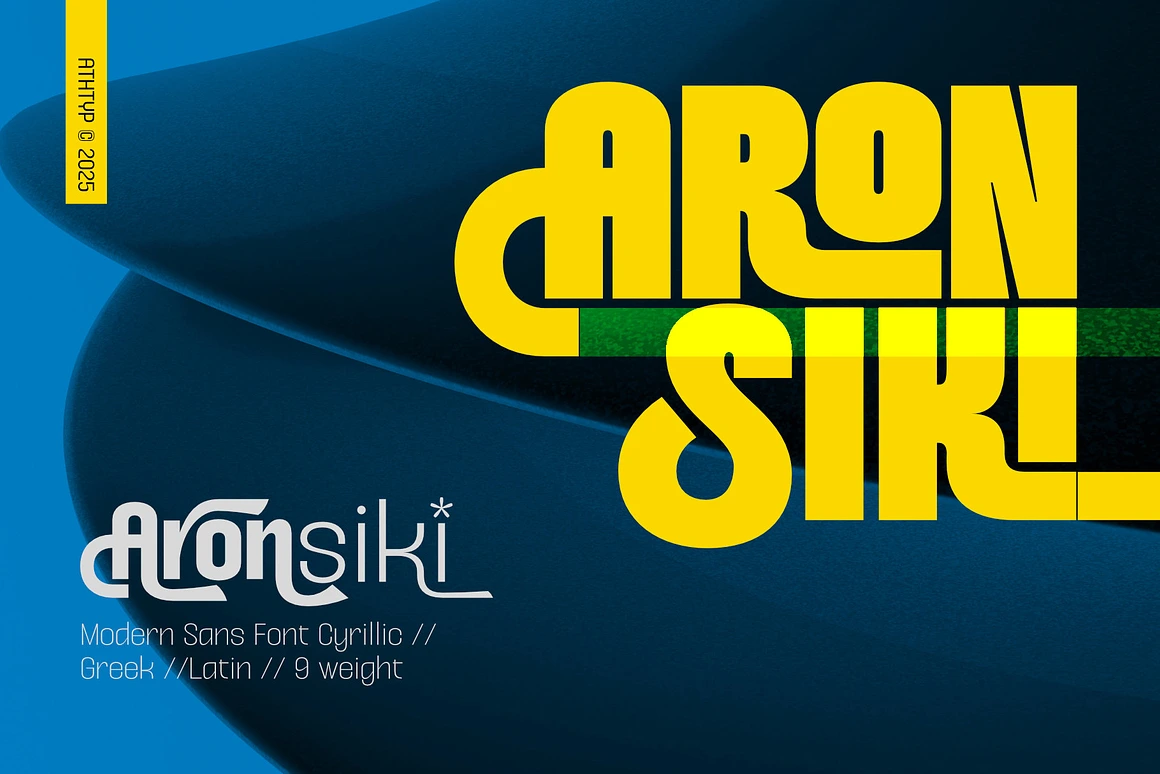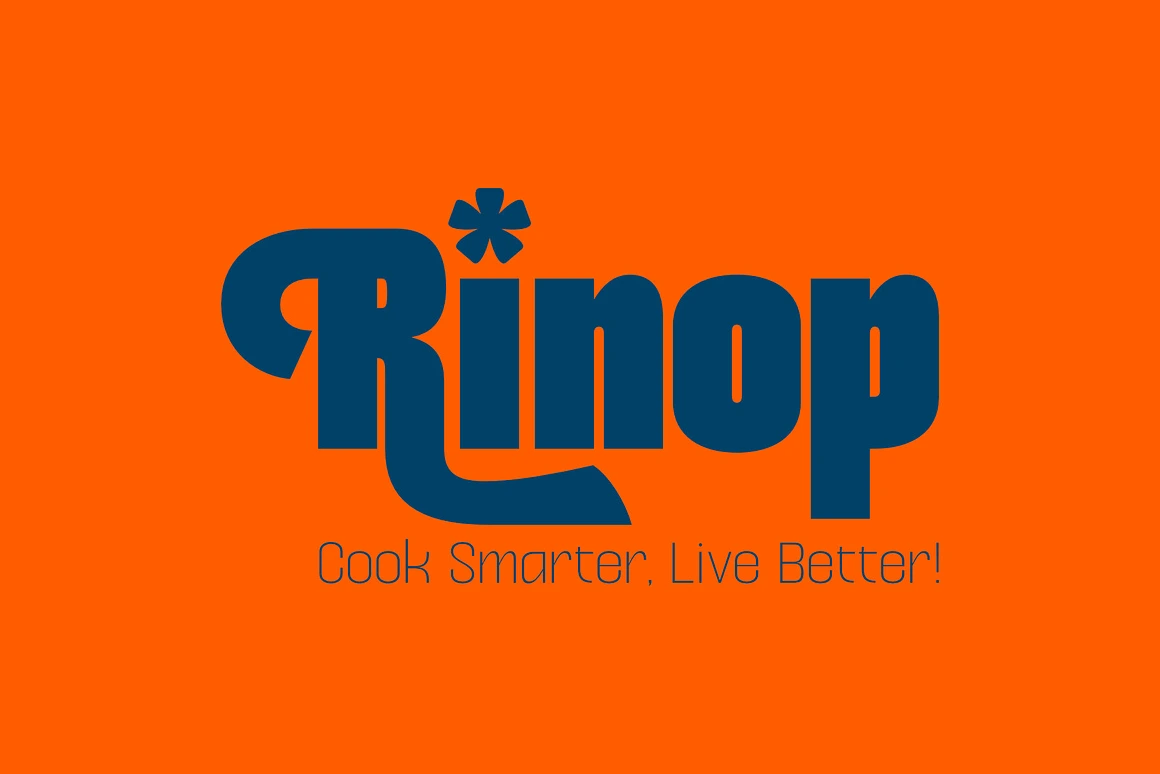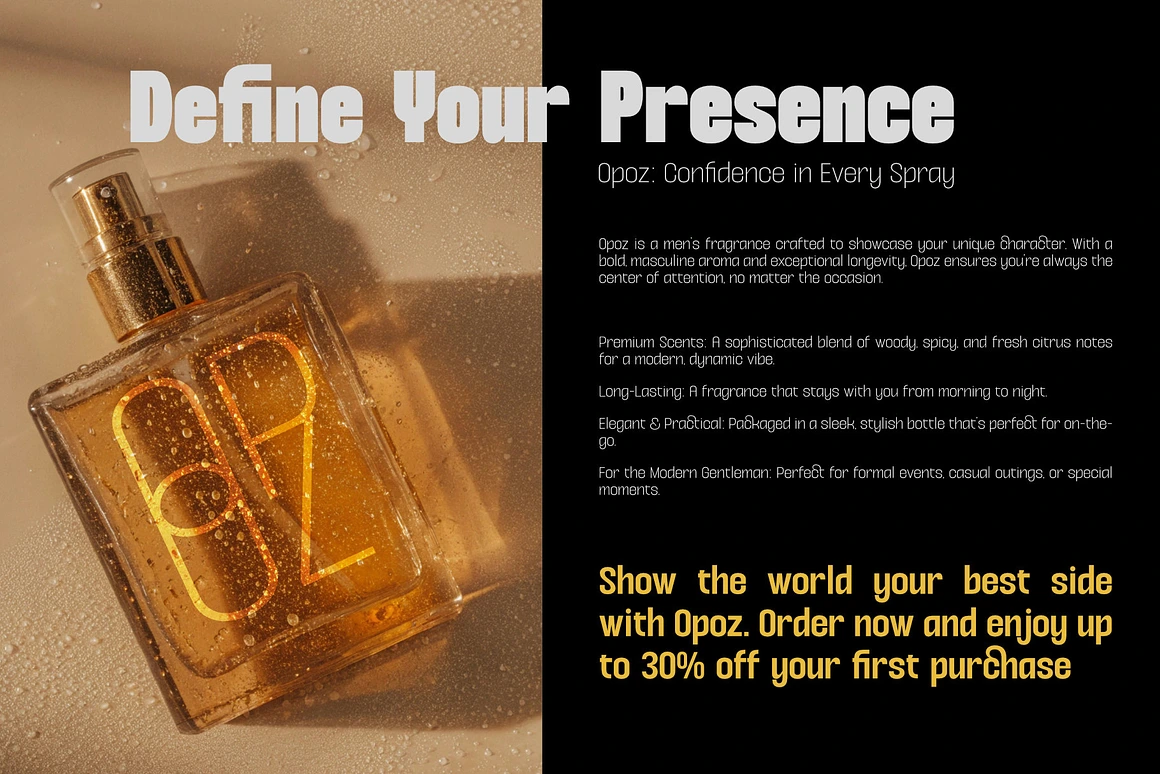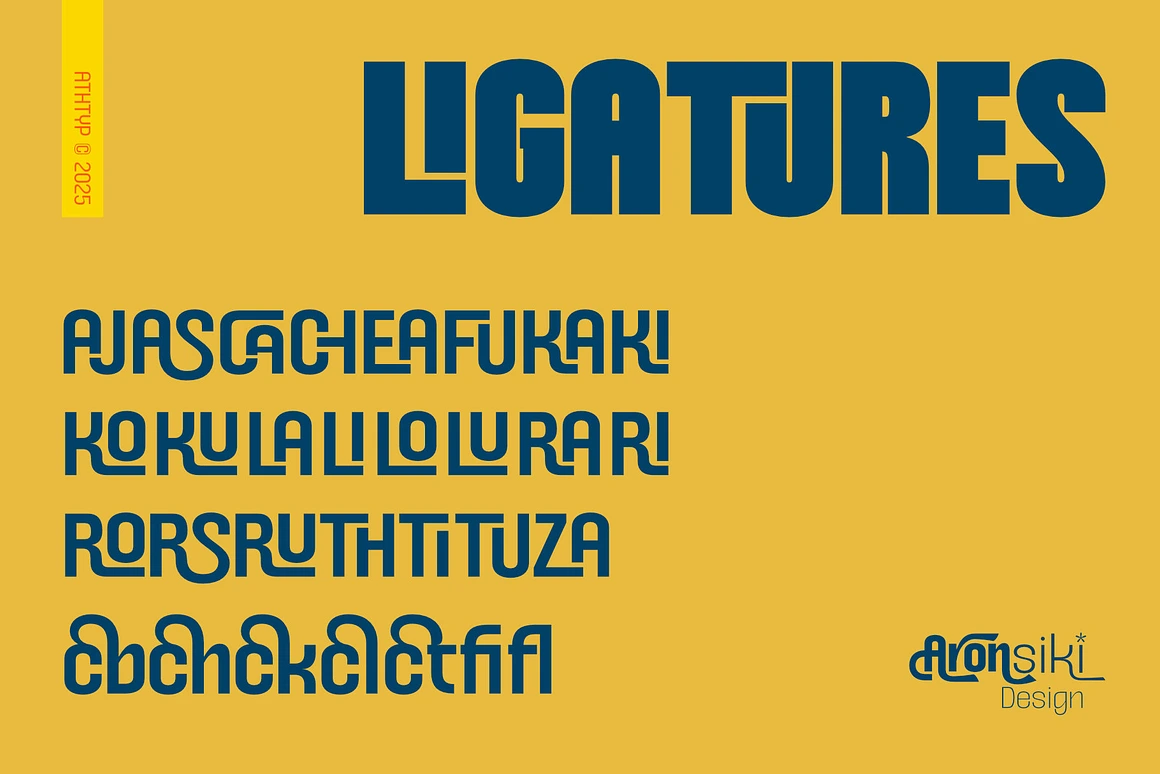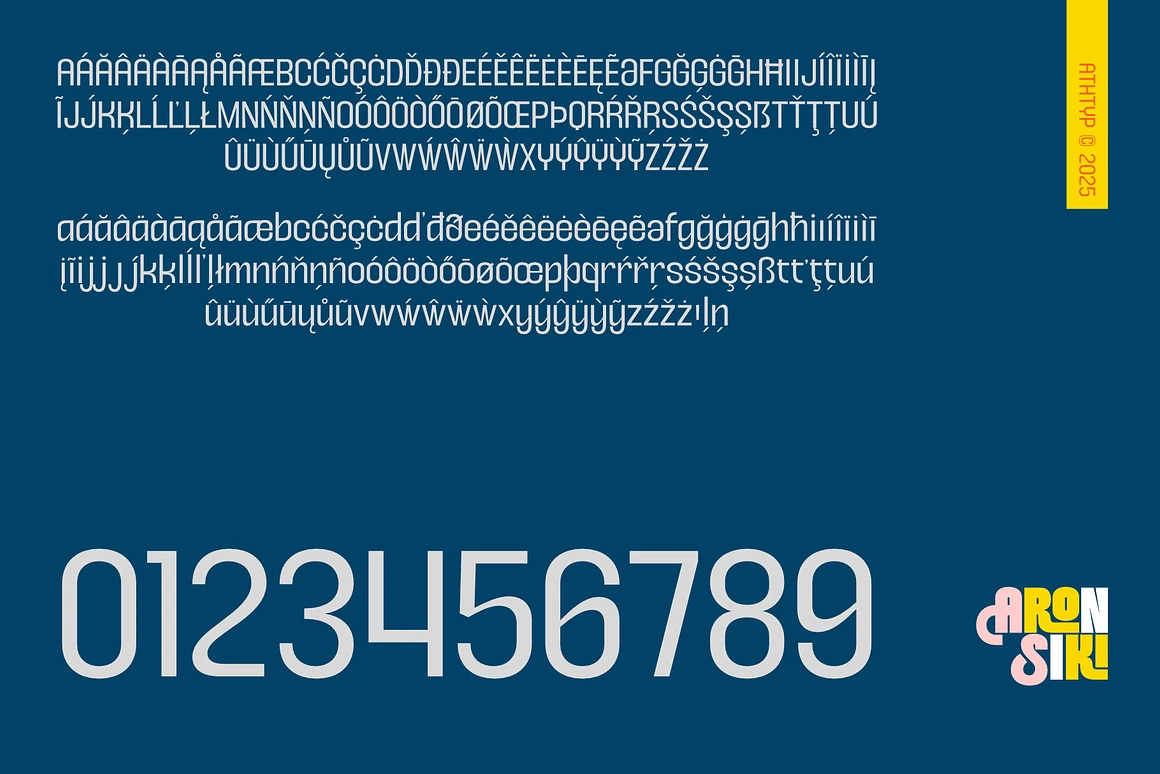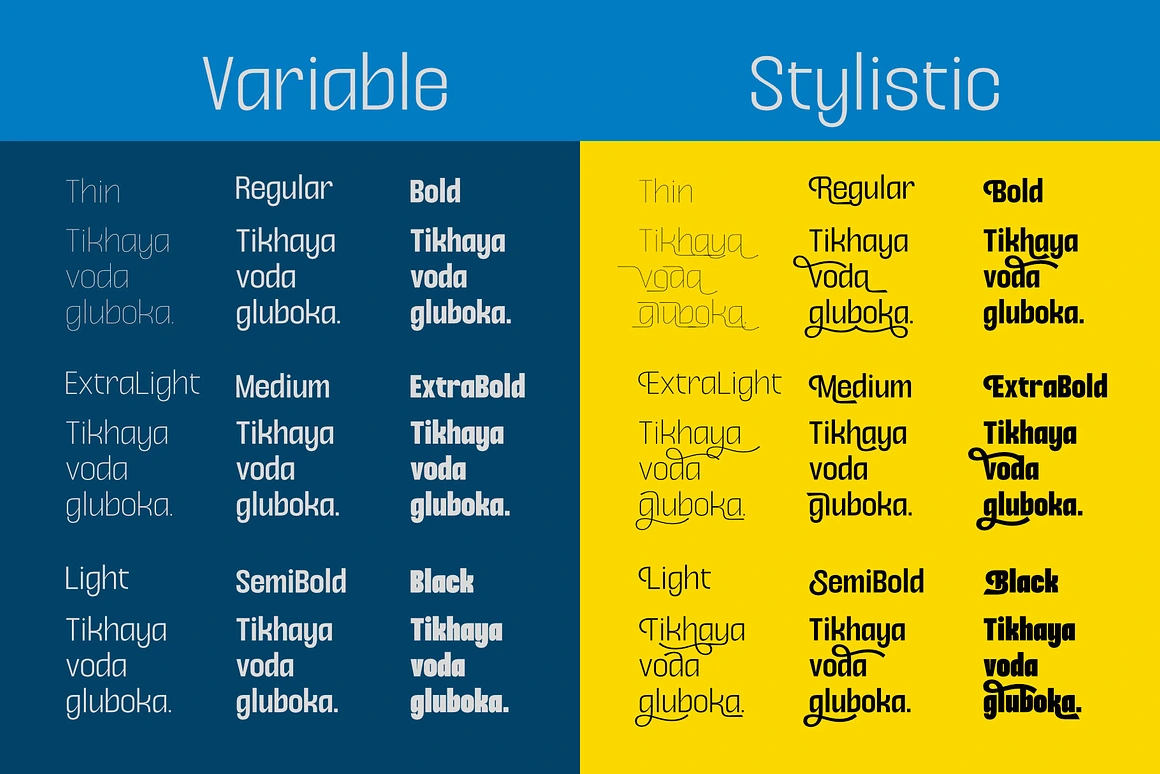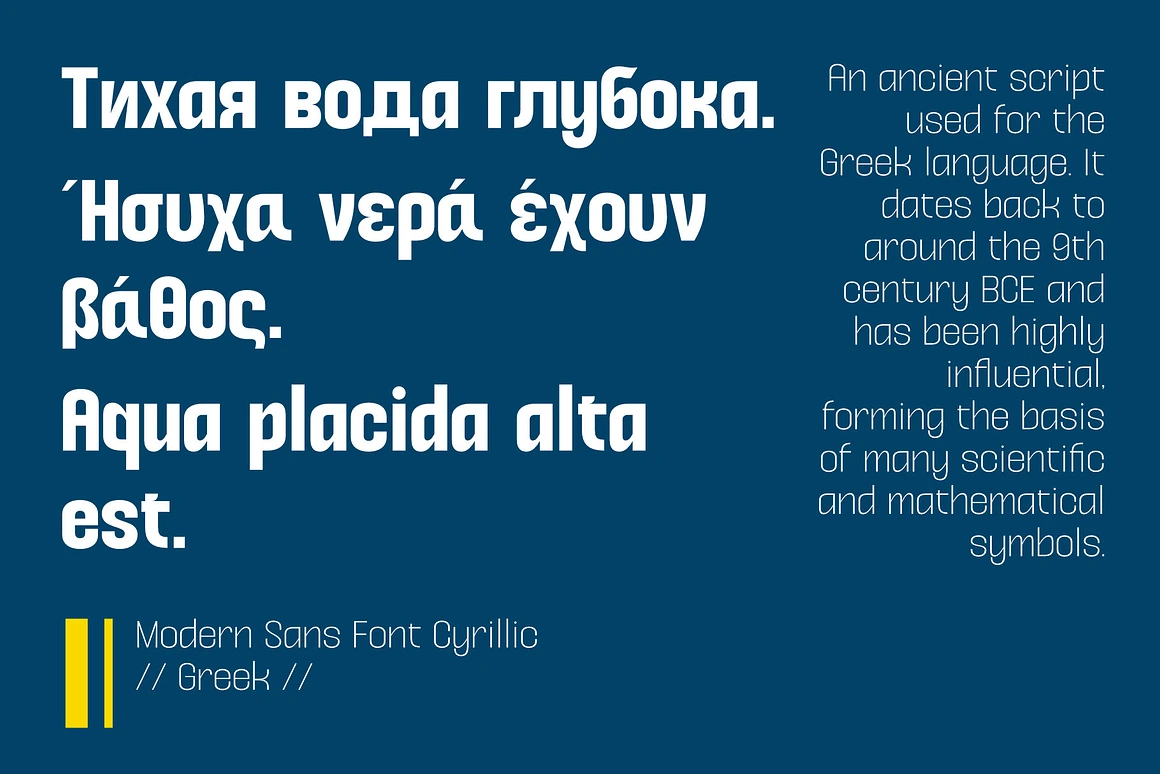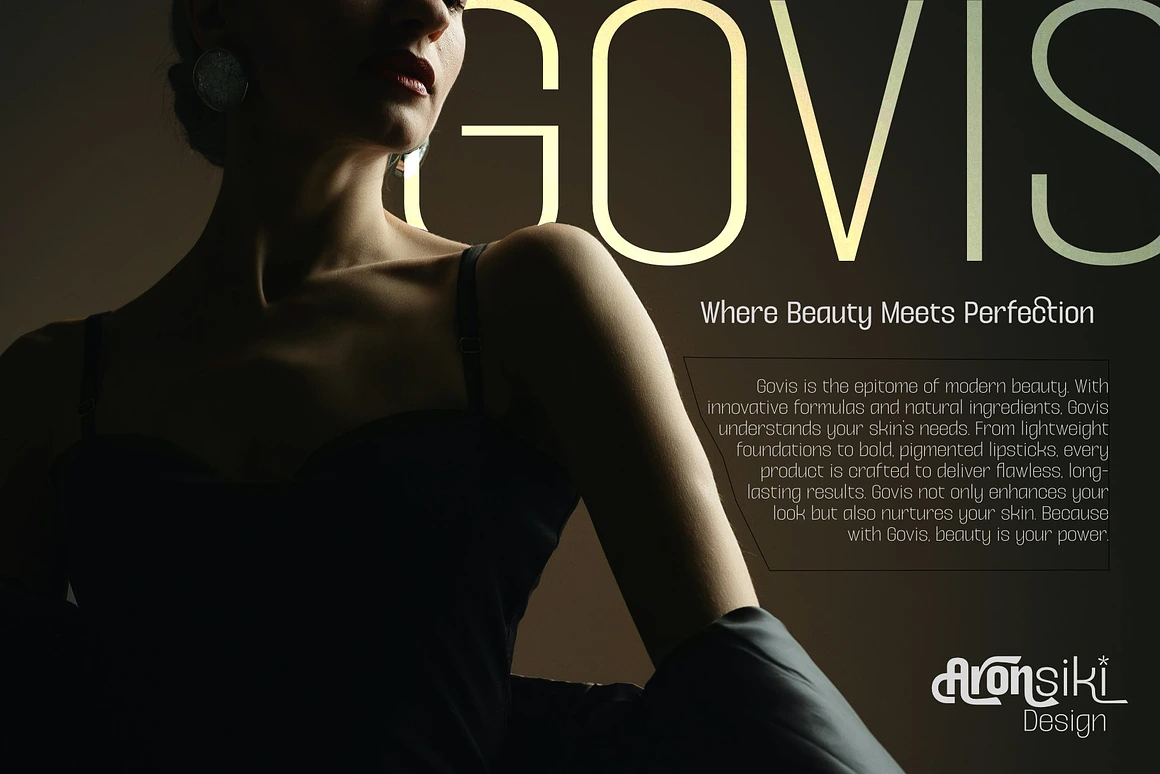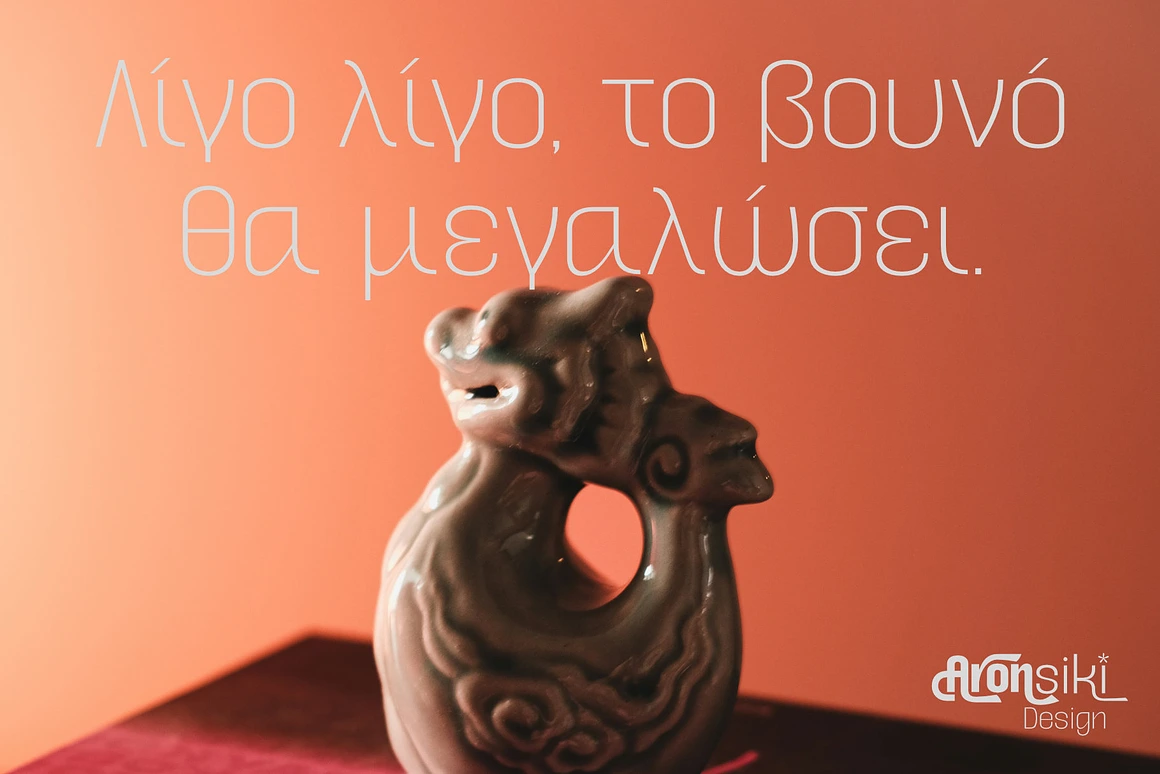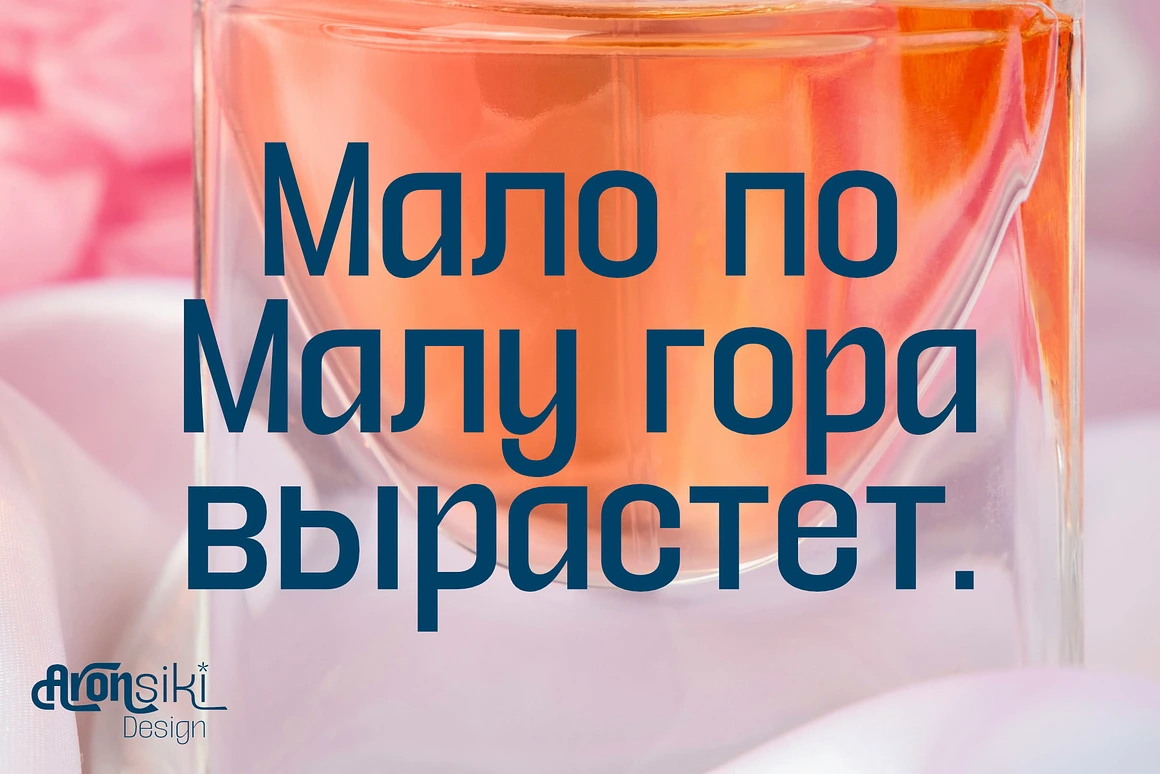
Aronsiki - Versatile Elegance Font
Aronsiki Versatile Elegance Font for Global Design A modern sans-serif font family featuring 9 weight variants, from Thin to Black, offering complete flexibility for diverse design needs. With support for Latin, Cyrillic, and Greek scripts, it is perfectly suited for international projects.
FONT DESIGN CHARACTERISTICS
Geometric Sans-Serif: Aronsiki employs a geometric and clean sans-serif structure. Its letterforms are proportional and exude a modern aesthetic. Simplicity: Free from excessive decorative elements, the font delivers a minimalist yet professional impression. Design Consistency: Each character is crafted with harmonious balance, blending curved elements and straight lines seamlessly.
STYLE AND FUNCTION
Multilingual Support: Aronsiki accommodates various scripts, including Latin with diacritics, Cyrillic, and Greek, as well as numbers and symbols, making it highly versatile for global applications. Clarity in Numbers: Its digits (0–9) are designed for readability and sophistication, ideal for use in editorial designs, web interfaces, and branding.
USAGE
Modern Branding: With its clean and professional aesthetic, Aronsiki is perfect for brands looking to convey a futuristic and progressive identity. Digital and Print: The font’s versatility ensures seamless application across digital platforms like websites and apps, as well as in print editorial layouts.
KEY FEATURES
Ligatures: Enhances text aesthetics with beautiful letter combinations. Stylistic Sets: Includes 2 stylistic sets, providing creative alternative letterforms. Swash: Adds elegant decorative accents to elevate your designs. Multilingual Support: Covers a wide range of Latin, Cyrillic, and Greek-based languages. Kerning: Meticulously adjusted for optimal readability and balance. Comprehensive Formats: Supports all major formats for seamless use in both digital and print media.